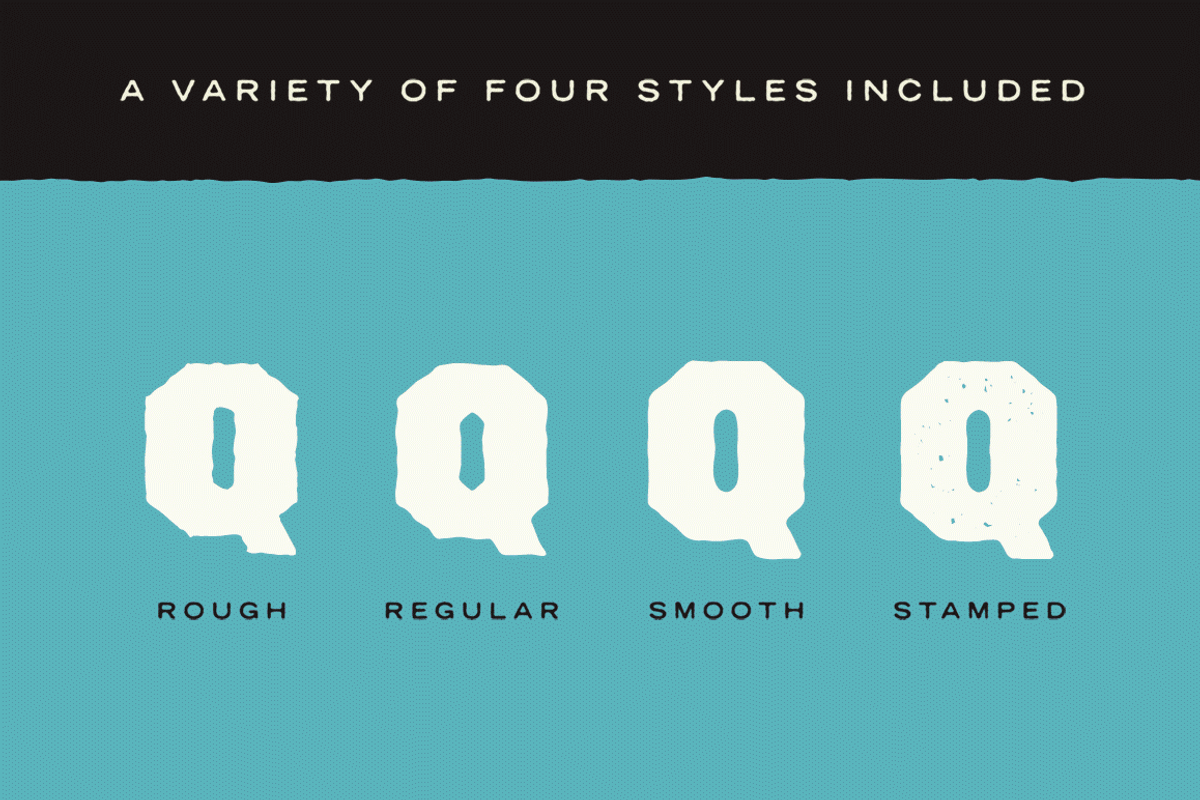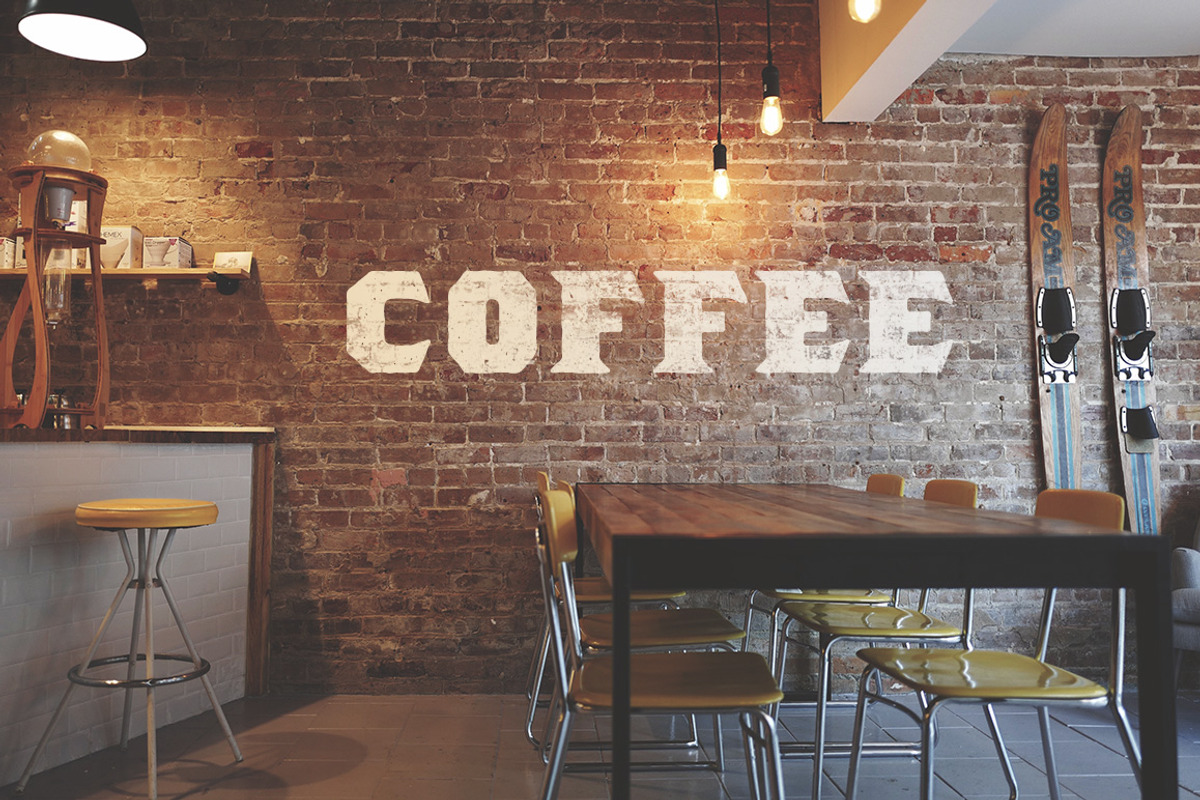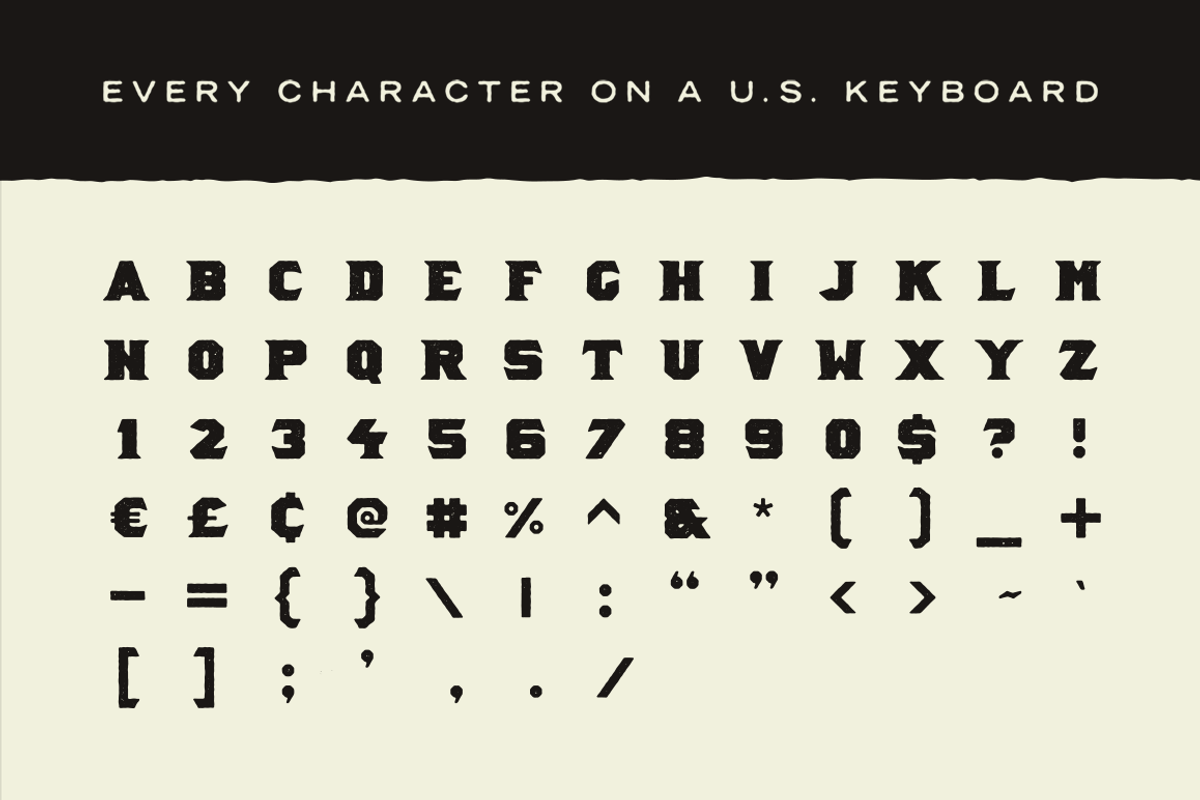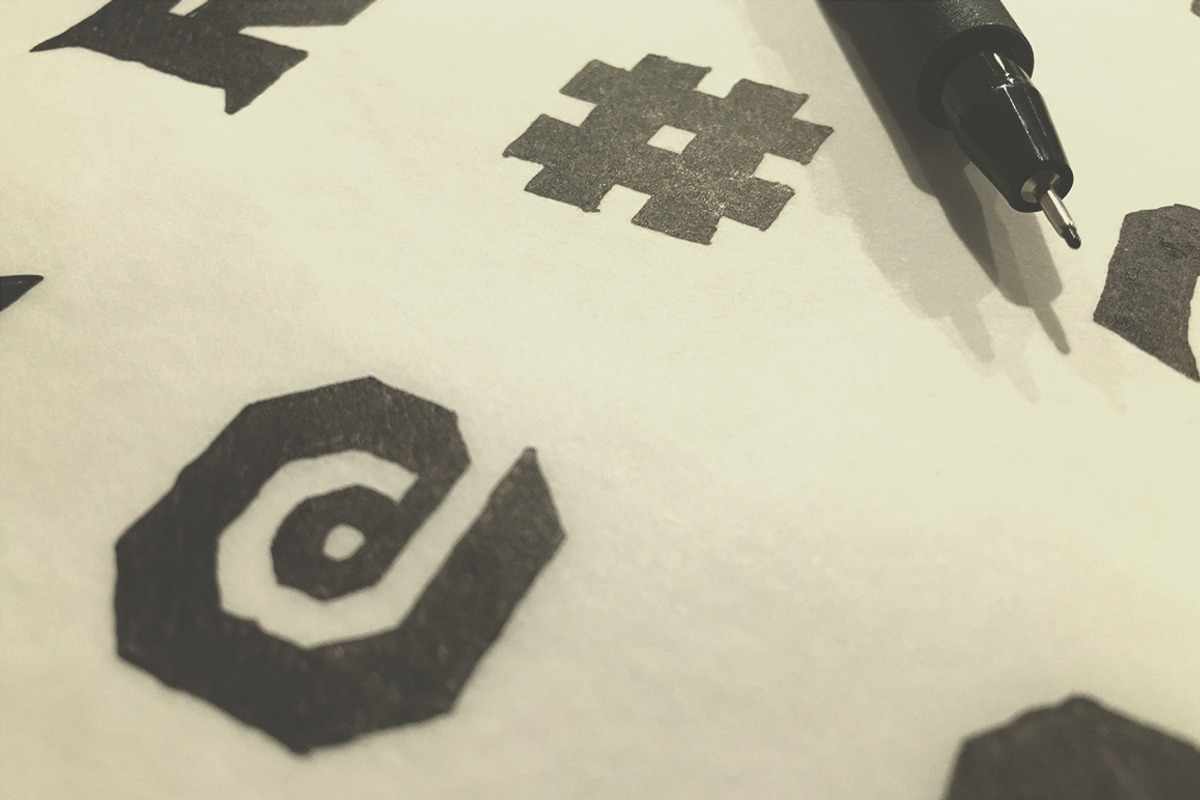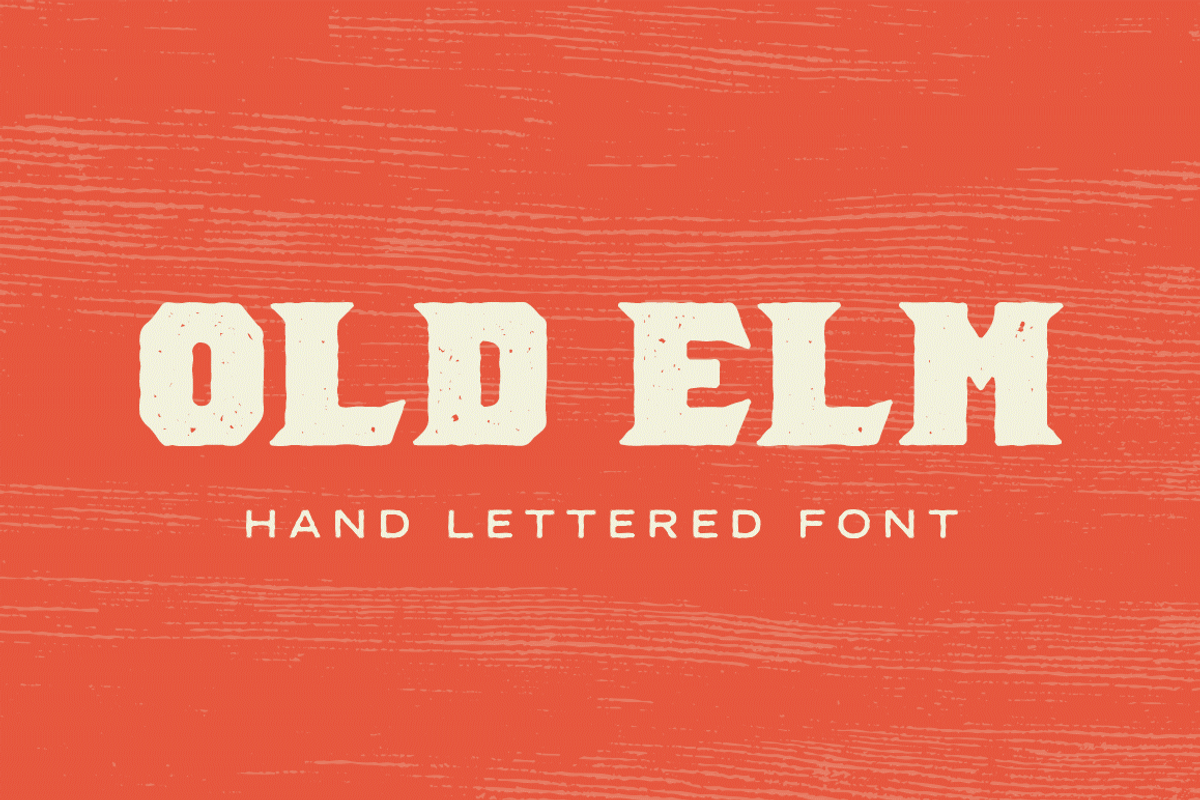
Old Elm Font
Old Elm Font by GhostlyPixels is a font selected for branding, posters, packaging, typography.
- Regular
- Rough
- Smooth
- Stamped
- I originally sketched the characters with a pencil by hand, and then traced them by hand via a pen before scanning and teaming up with Noe A
- Select the option that works best for each design project: Regular Rough Smooth Stamped 72 Characters Included: Few things are more frustrat
- I didn't skimp on the characters.
Old Elm Font by GhostlyPixels fits naturally into Branding, posters, packaging, typography.